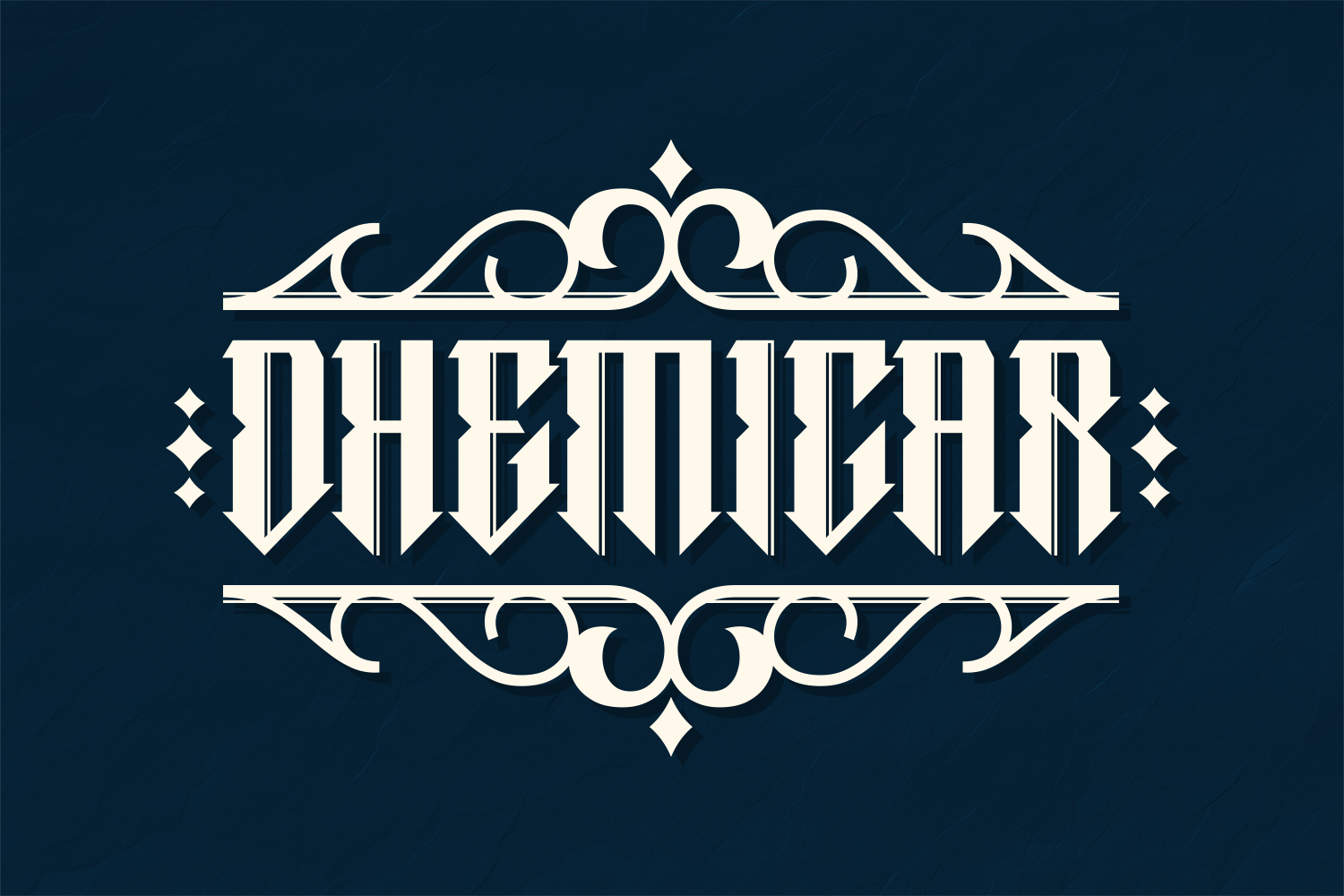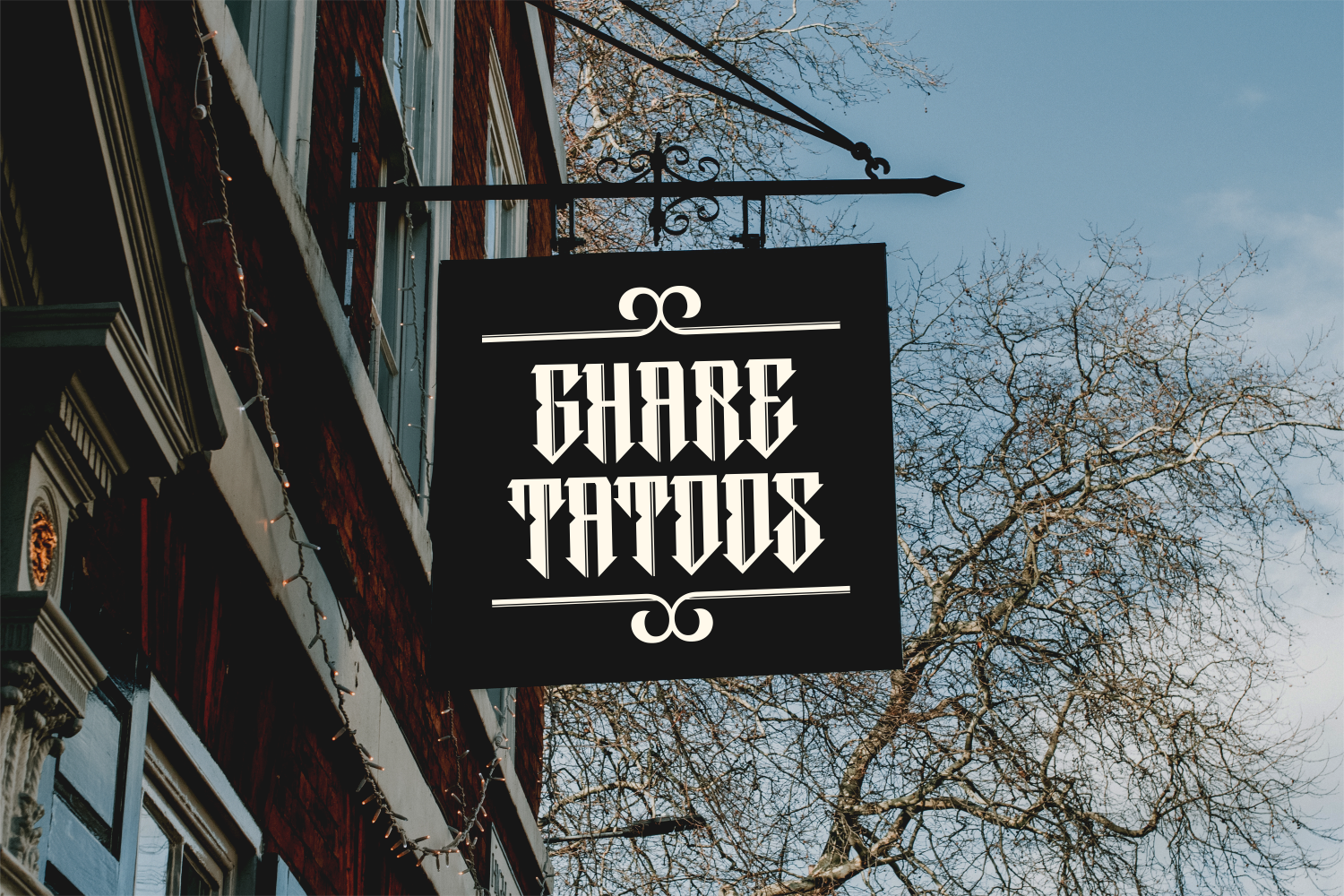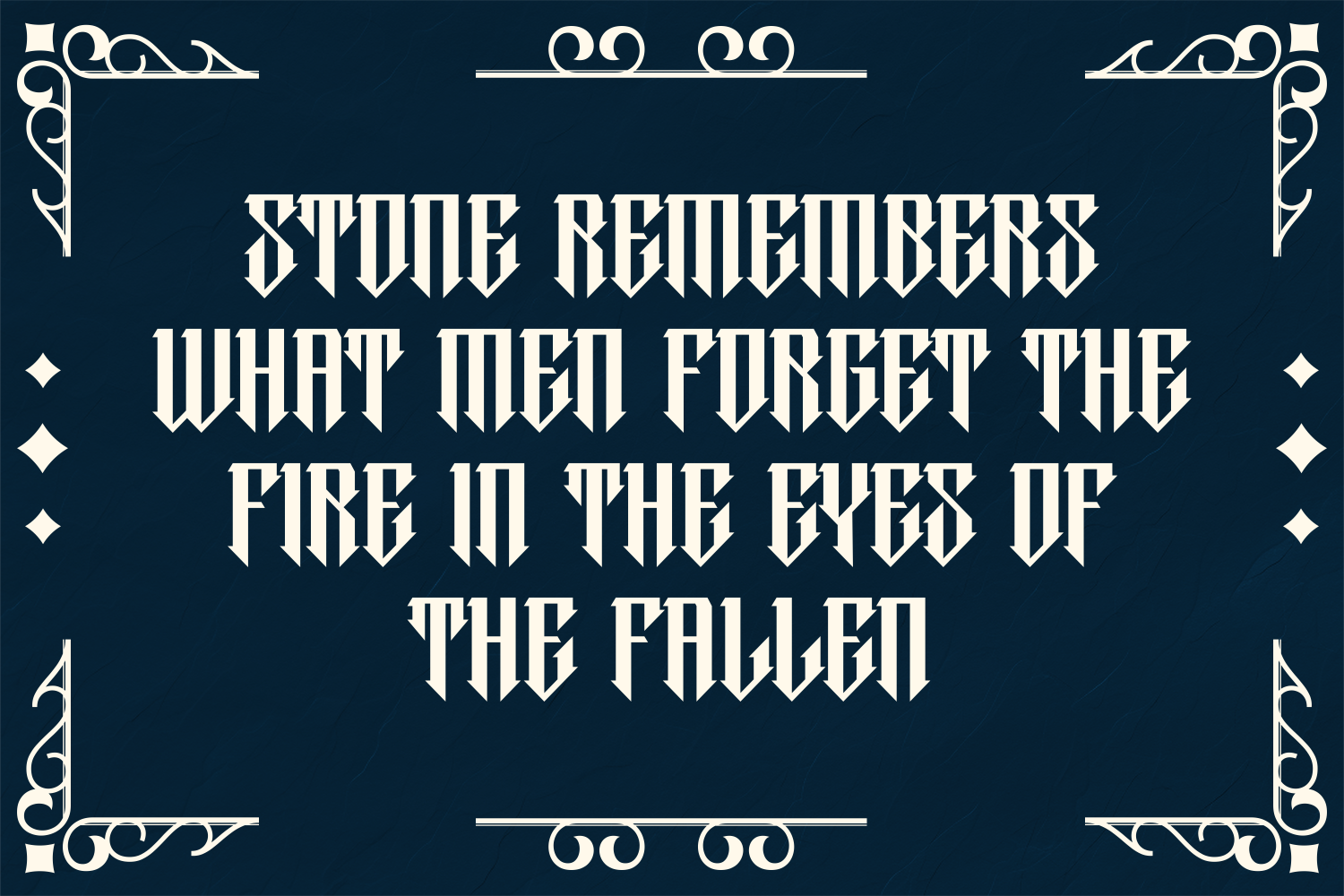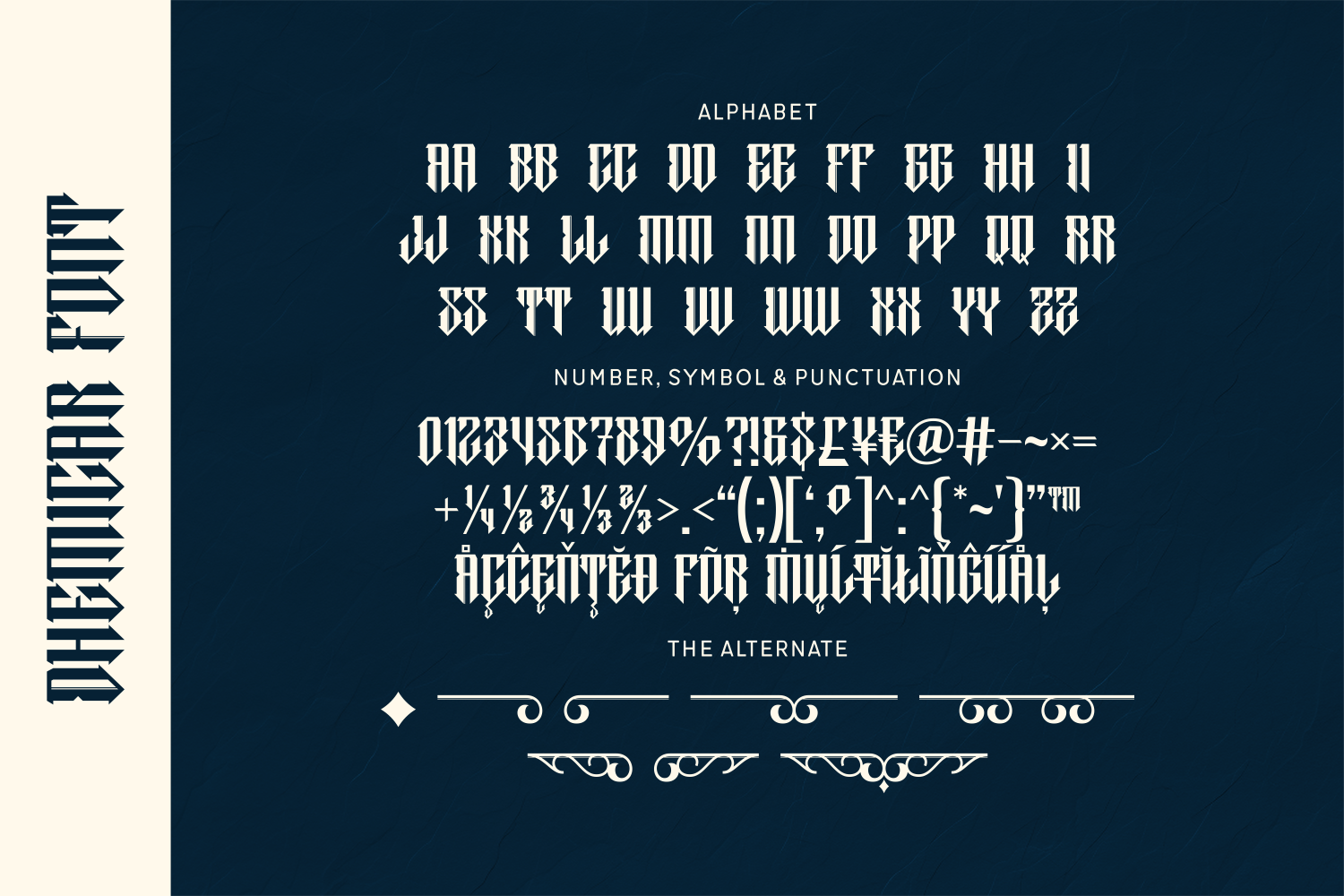
Dhemicar is a bold blackletter display font with sharp, angular precision and strong vertical energy. Inspired by vintage signage and gothic symmetry, it’s perfect for band logos, hardcore branding, and ornate title treatments. Decorative accents and high contrast give it a powerful, eye-catching finish.